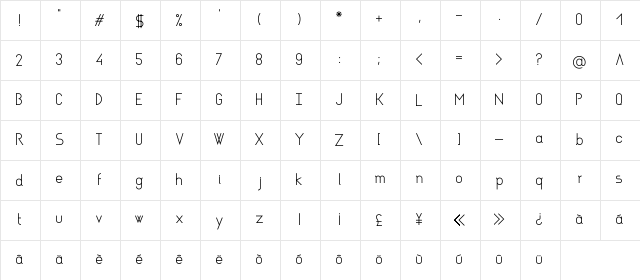
Asgalt Regular
Design Context for Asgalt
Asgalt is a composed and adaptable typeface that performs quietly and consistently across a wide range of design contexts.
Pro Tip: Use Asgalt in both headline and body roles to test its range before committing to a single application.